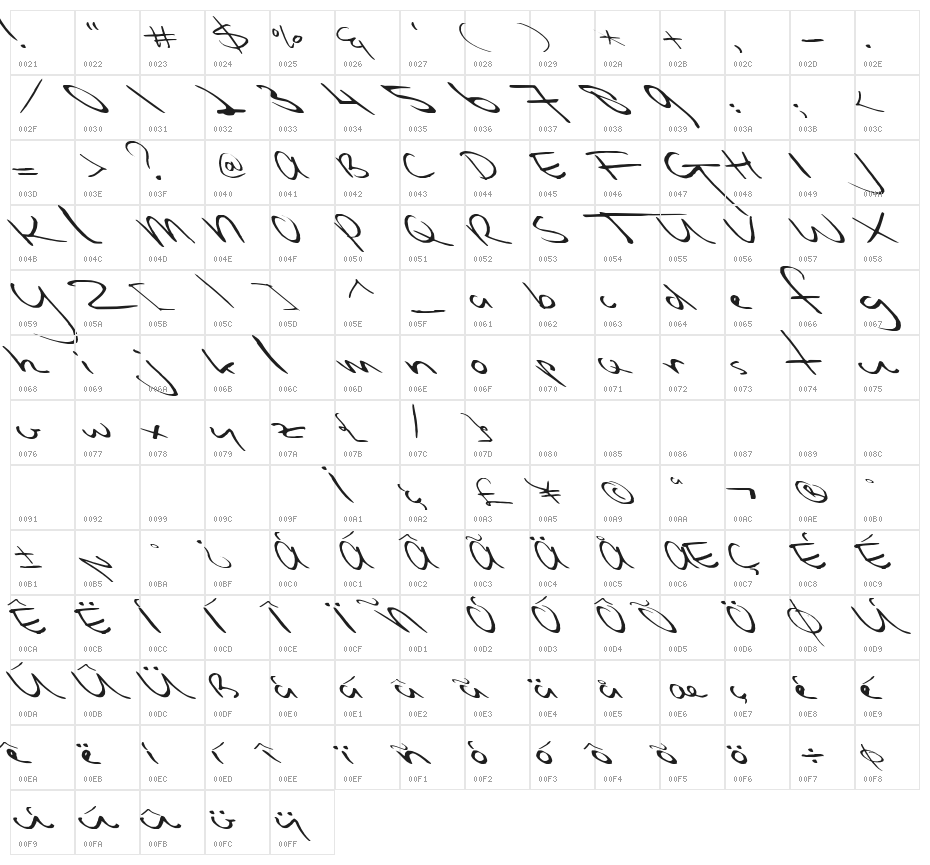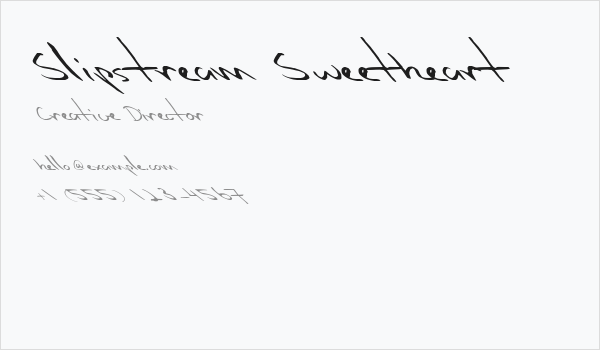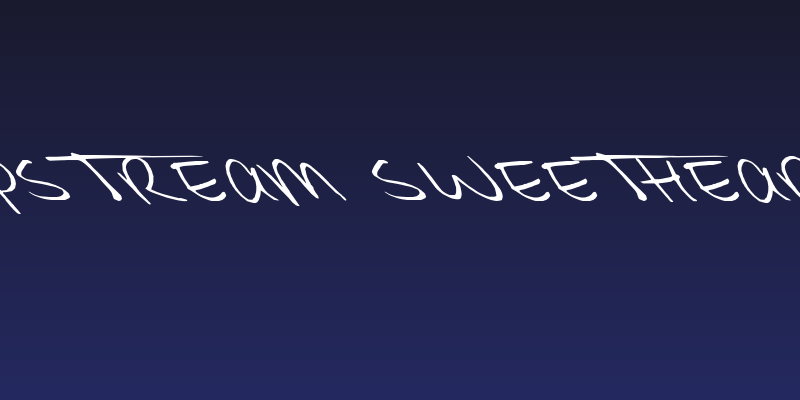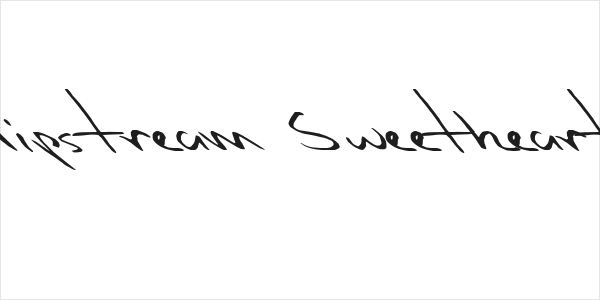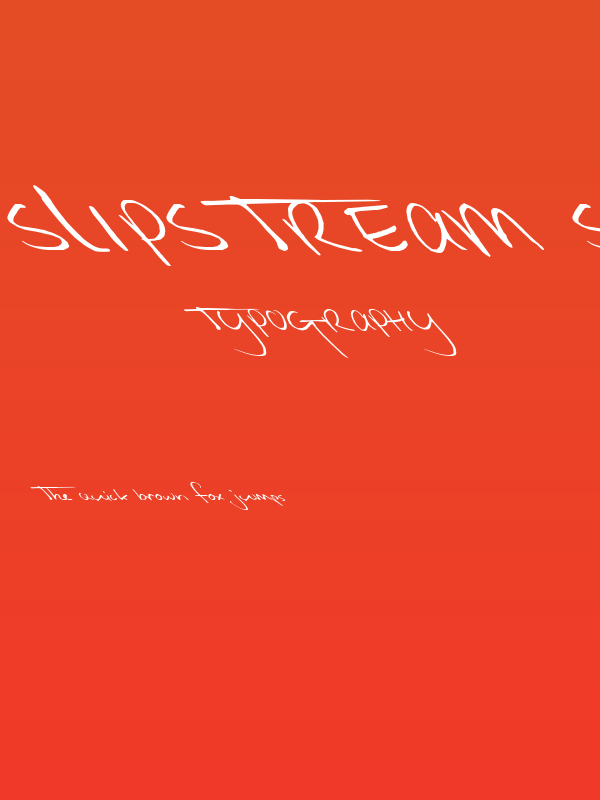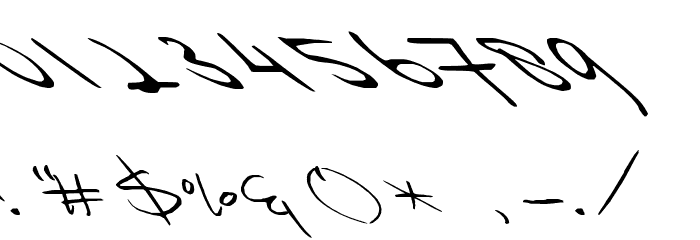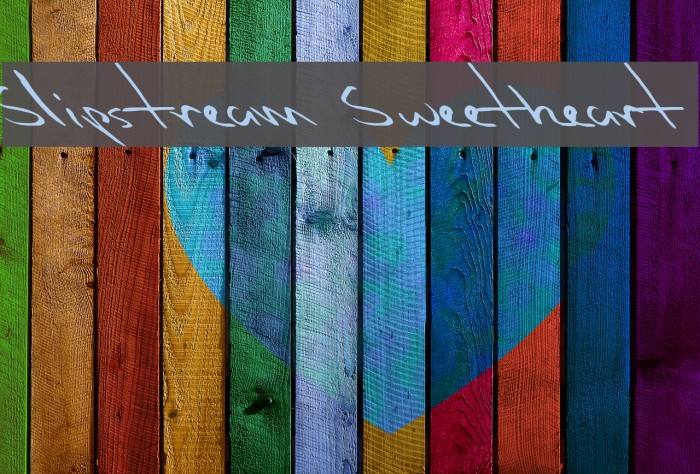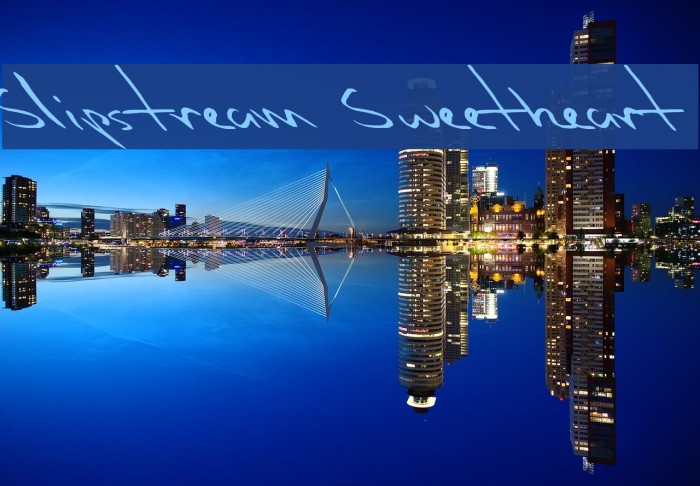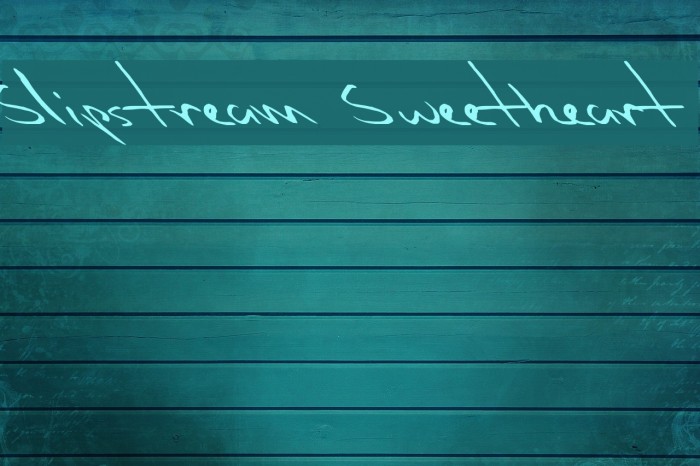
Slipstream Sweetheart Font
Slipstream Sweetheart Description
This font exudes a dynamic and expressive style, characterized by its fluid, handwritten appearance. The letters are crafted with a sense of motion, featuring sweeping curves and varying stroke widths that give it a lively and personal touch. The uppercase and lowercase letters maintain a consistent style, with some letters extending slightly beyond the baseline, adding to its casual and artistic flair. The numerals and special characters are equally expressive, maintaining the font's overall energetic and informal aesthetic. This font is perfect for projects that require a personal, creative touch, such as invitations, greeting cards, or artistic branding.
| Use Case | Logos, Headlines |
| Proposed Projects | Ideal for creative projects like invitations, greeting cards, and artistic branding. |